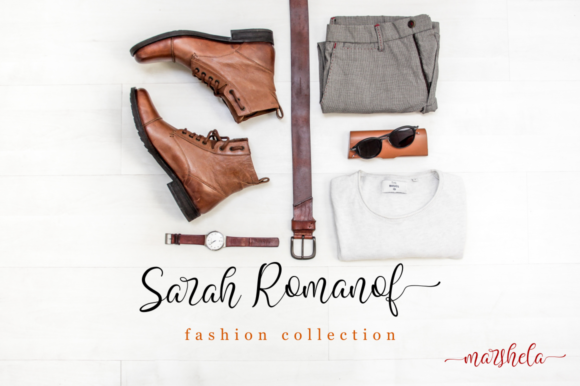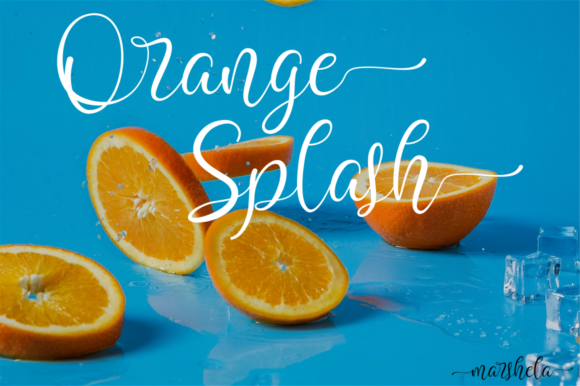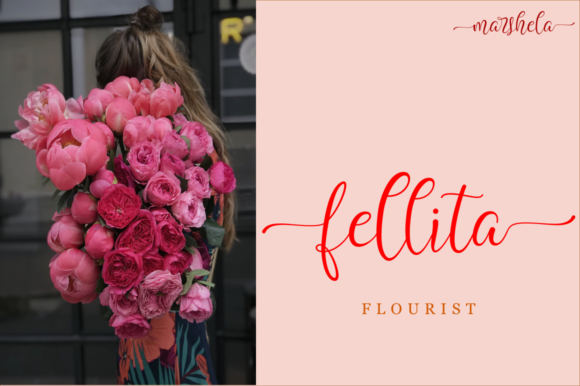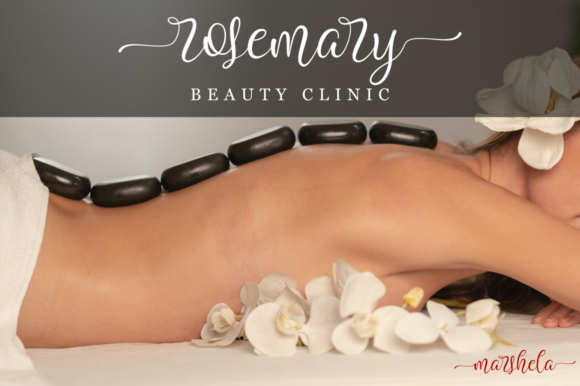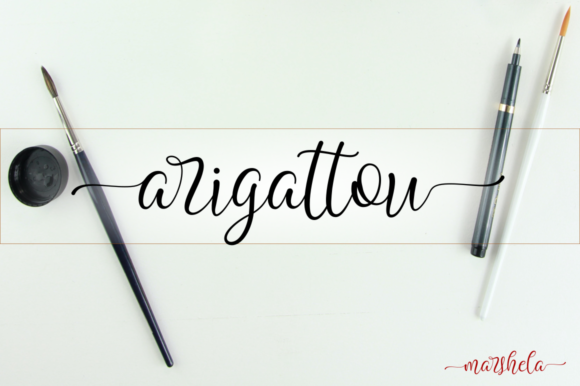
Introduction to Marshela Font
Have you ever found yourself stuck in a creative rut, searching for the perfect font to elevate your project? You know, that moment when you’re brainstorming ideas for a new logo or branding concept, but nothing seems quite right? For designers, finding the right font can make all the difference in bringing a concept to life.
That’s where the Marshela Font comes in – a lovely and timeless handwritten font that’s sure to capture attention. With its unique charm and high-quality design, Marshela Font is the perfect choice for creating eye-catching logos, branding, and quotes. And the best part? It’s PUA encoded, making it easy to access all of the glyphs and swashes you need for your next design project.
Whether you’re working on a free download or a paid design resource, Marshela Font is a valuable addition to any designer’s toolkit. Its transparent background and high-quality design make it a versatile choice for a wide range of creative projects.
Marshela Font
- High-quality, professional design for creative projects, ideal for graphic designers, digital artists, and writers.
- Unique, elegant design aesthetic, perfect for creating a sophisticated and modern look in any creative project.
Honest Review: Marshela Font
I recently stumbled upon the Marshela Font, and I must say it’s a lovely addition to any design project. The first thing that caught my attention was its elegant and sophisticated design. The Marshela Font is perfect for creating a high-end feel in your creative project, whether it’s a logo, business card, or brochure.
- Elegant and sophisticated design
- High-quality font suitable for creative projects
While the Marshela Font is an excellent addition to any design library, I did find it to be a bit limited in terms of font styles and variations. However, this is a minor issue and shouldn’t deter you from using this beautiful font in your design projects.
Overall, I’m thoroughly impressed with the Marshela Font, and I would highly recommend it to any designer looking for a high-quality font to add some sophistication to their creative project.
The Marshela Font is a high-quality design resource that can enhance any creative project. With its transparent background, it offers endless possibilities for customization and use.
The Marshela Font is ideal for various creative projects, including:
- Typography projects
- Personal branding